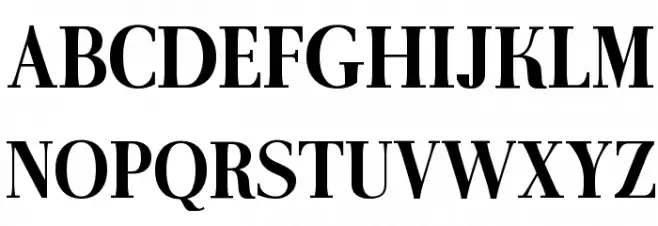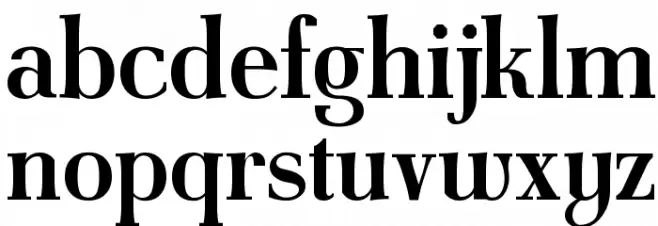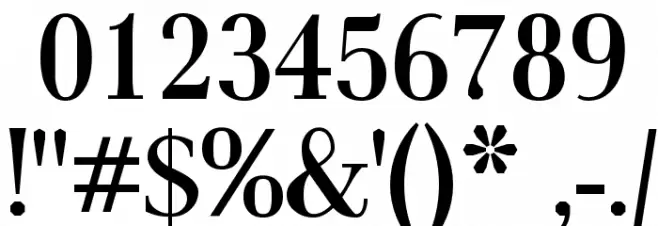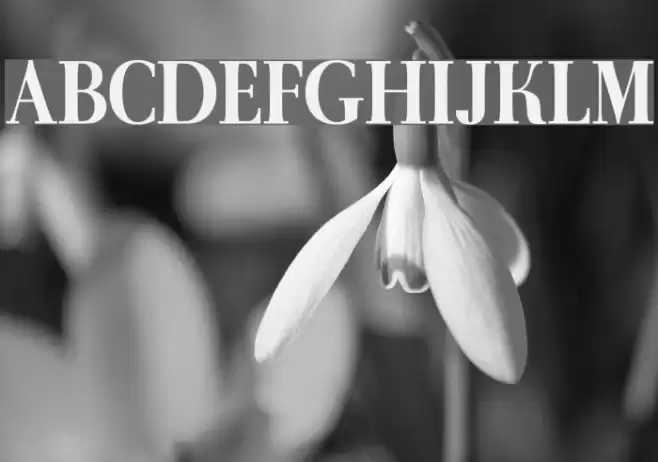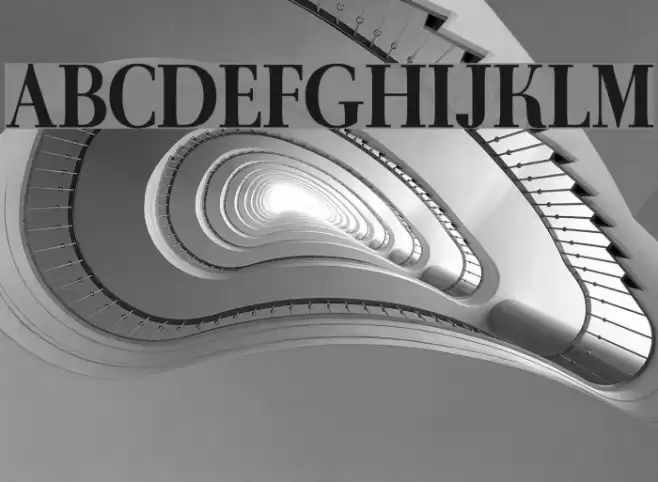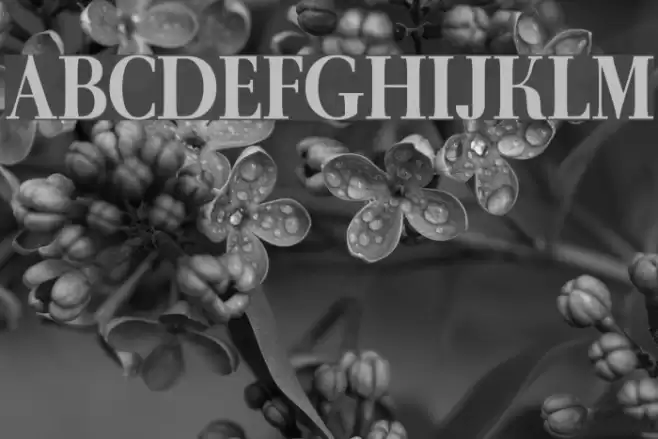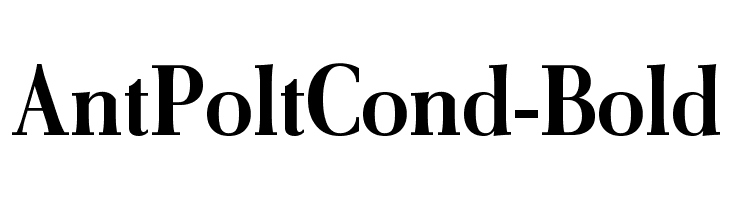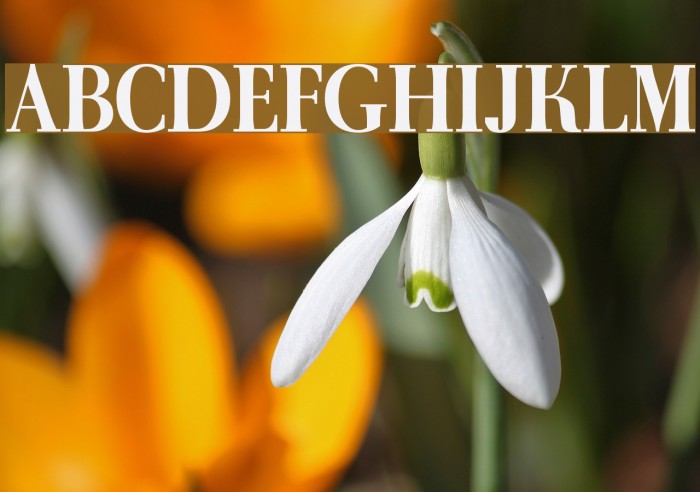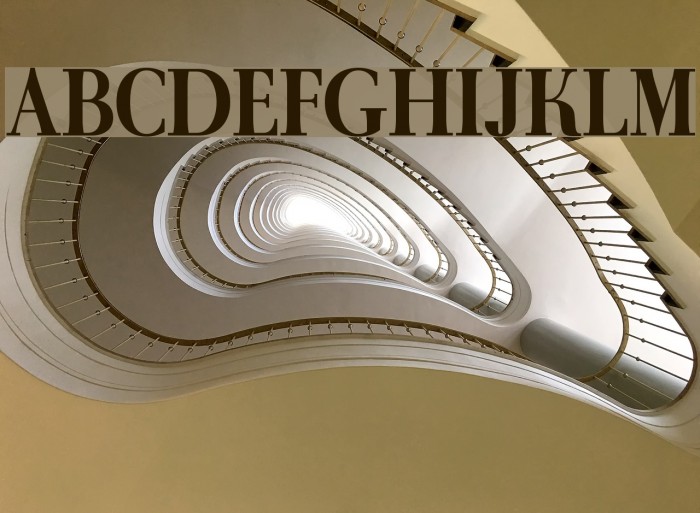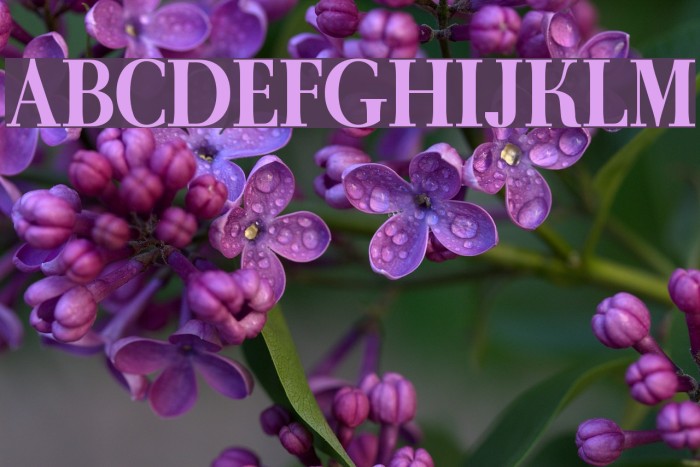
AntPoltCond-Bold
This font features a bold and condensed serif style, characterized by strong vertical lines and subtle curves. The serifs are pronounced, adding a classic touch to the overall modern aesthetic. The uppercase letters are tall and commanding, while the lowercase letters maintain a consistent height, providing a balanced appearance. The numerals are clear and distinct, ensuring readability. Special characters are designed with the same boldness, making them stand out effectively. This font's design is ideal for making a strong visual impact, combining traditional serif elements with a contemporary boldness.
A bold, condensed serif font with strong vertical lines and subtle curves.
- Proposed Projects: Ideal for headlines, posters, branding, and editorial design where a strong, classic yet modern impact is desired.
- Category: Serif
- Width: Condensed
- Contrast: High
- Use Case: Headlines, Logos, Posters